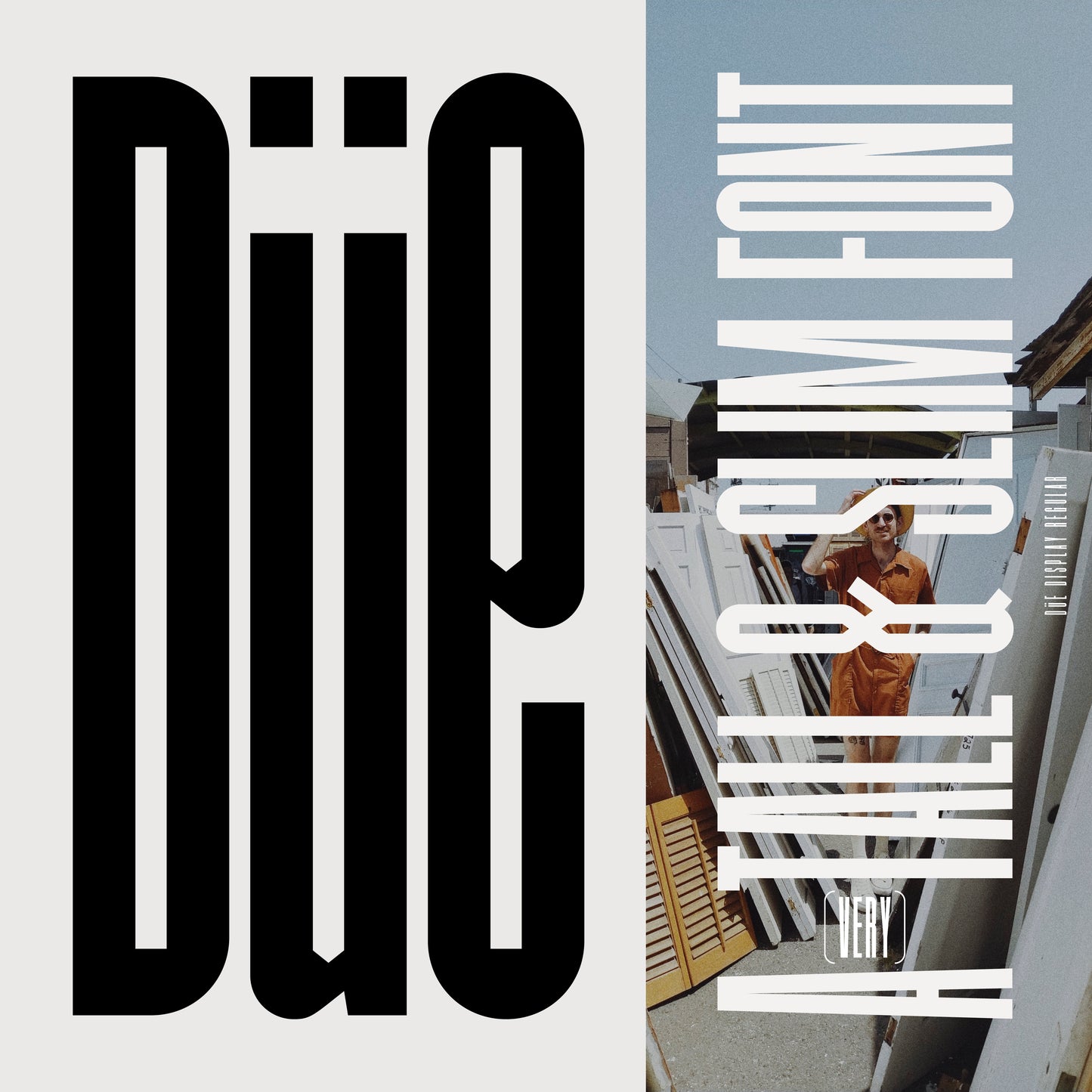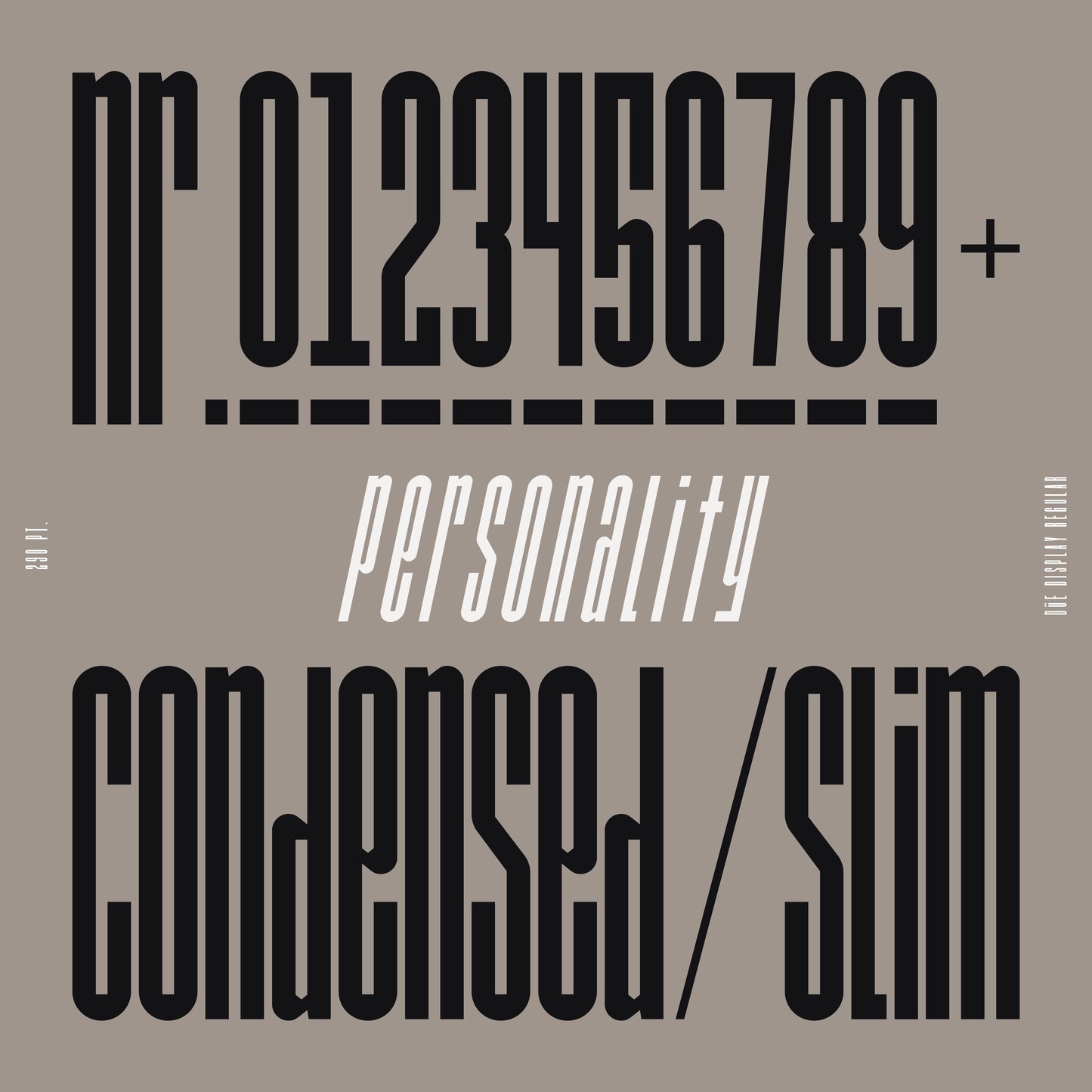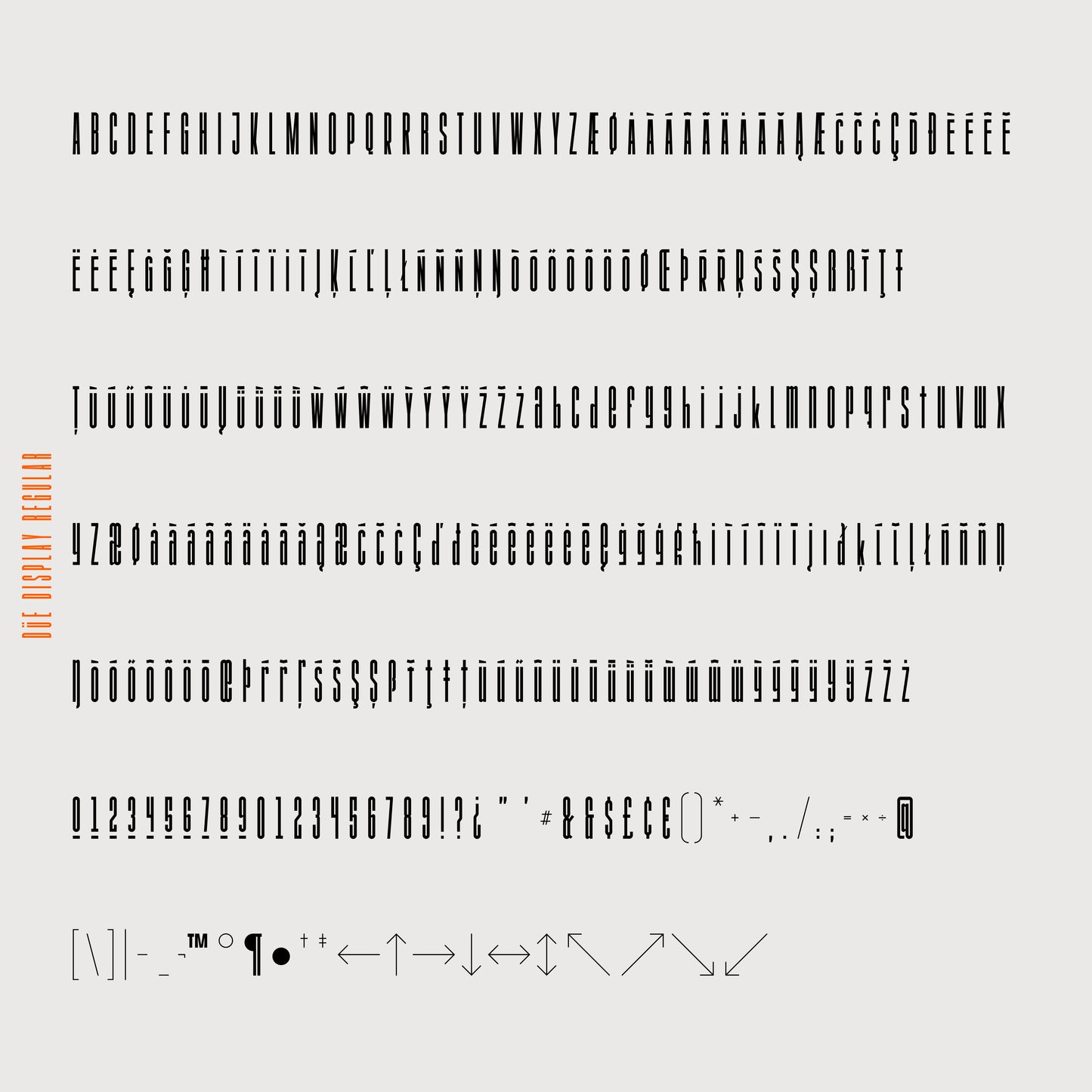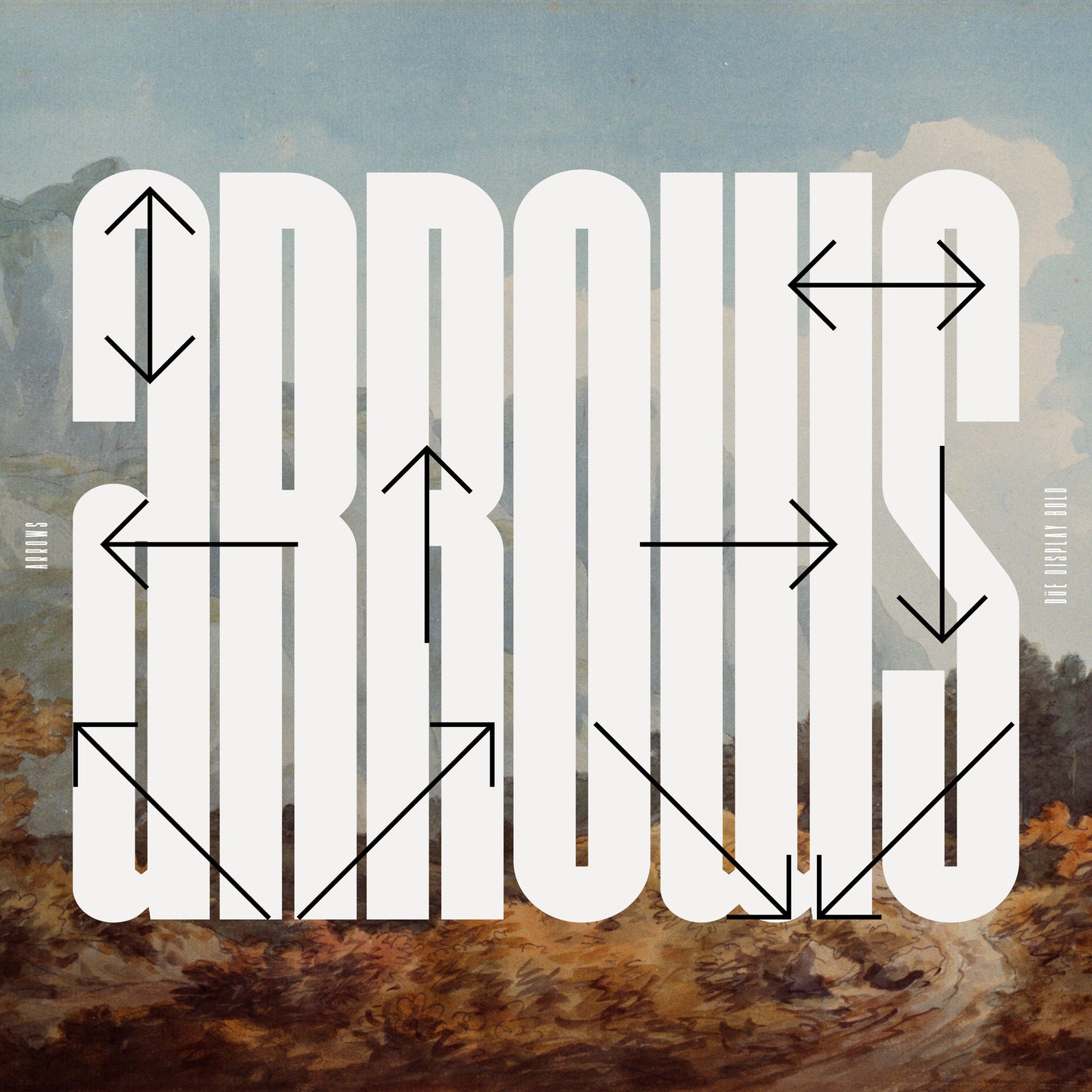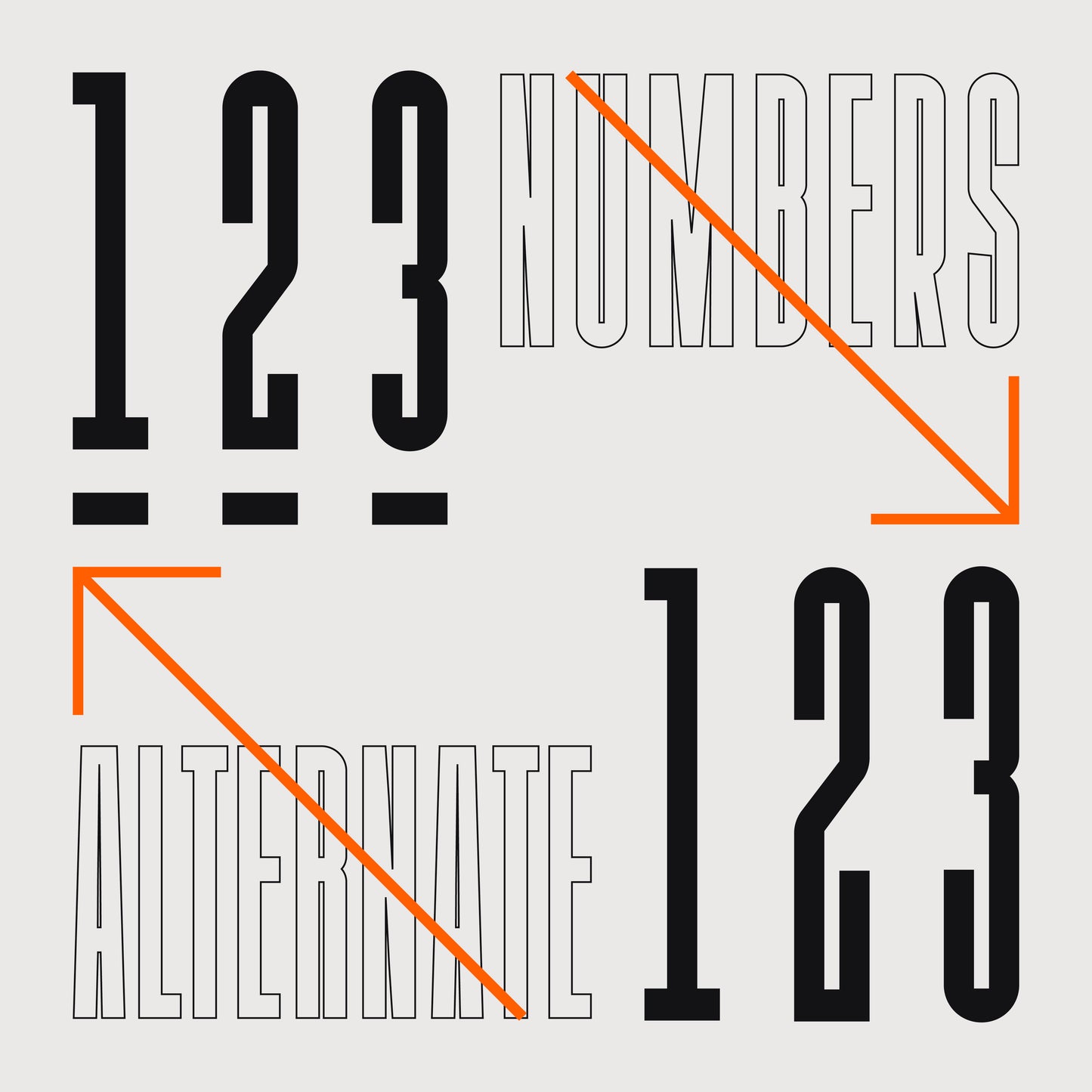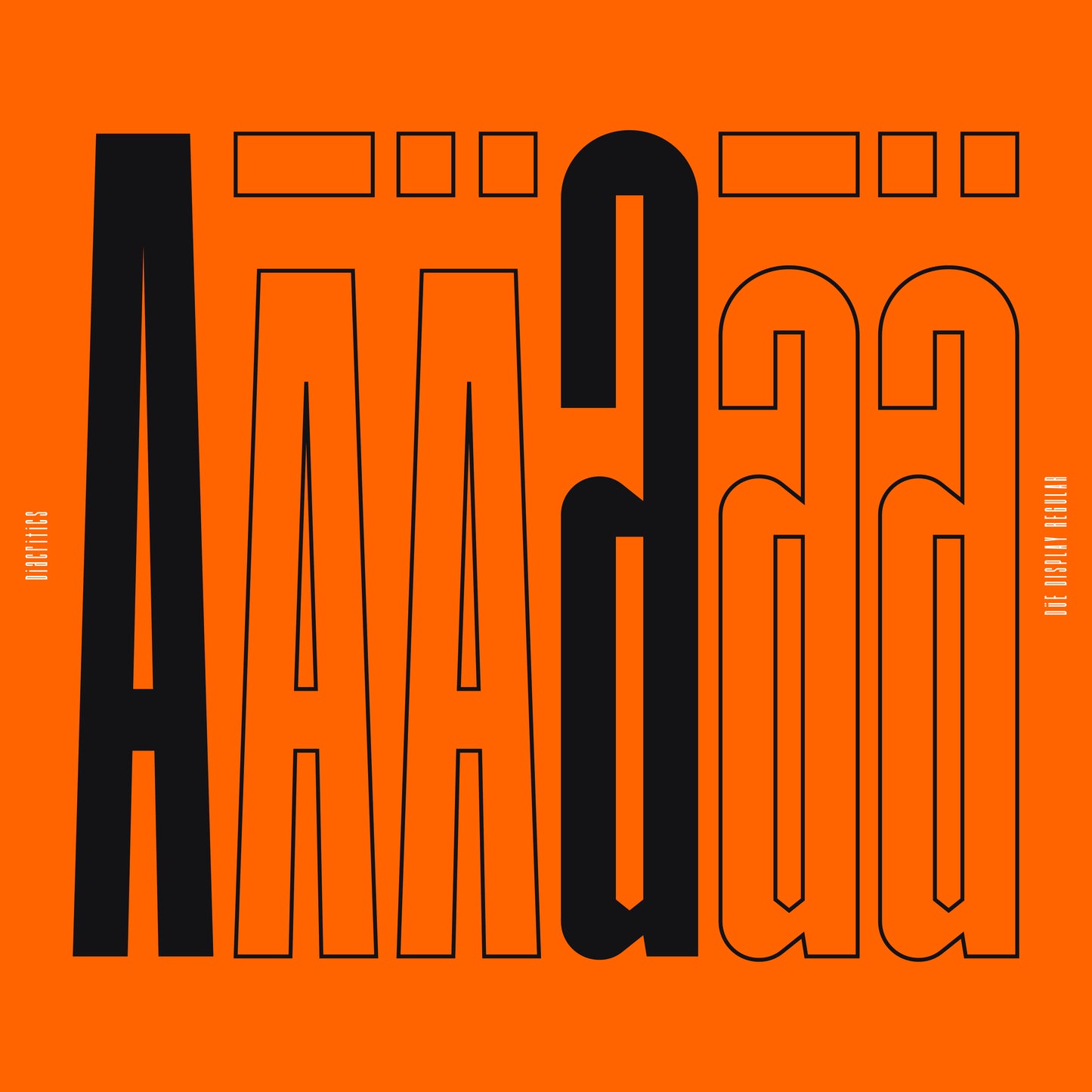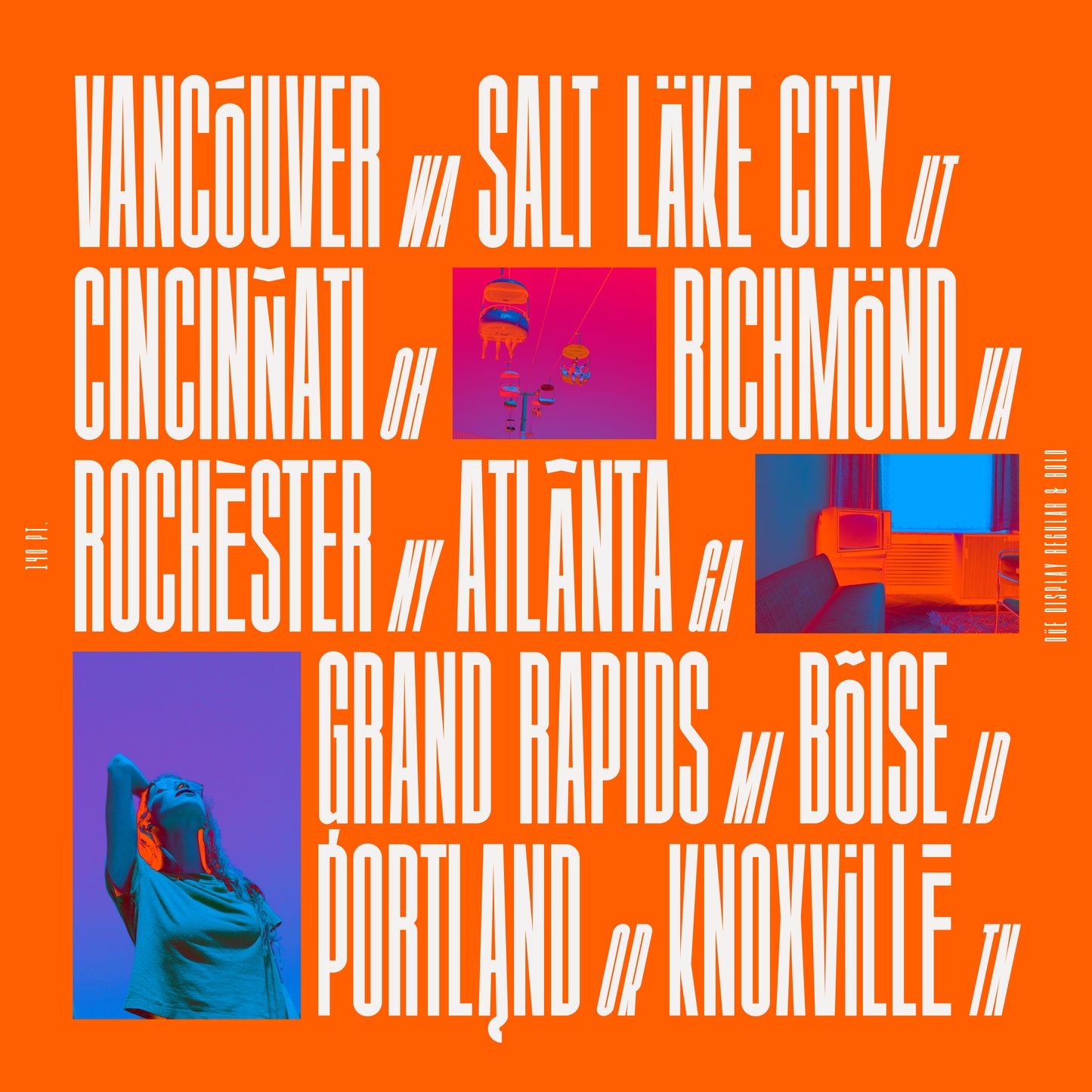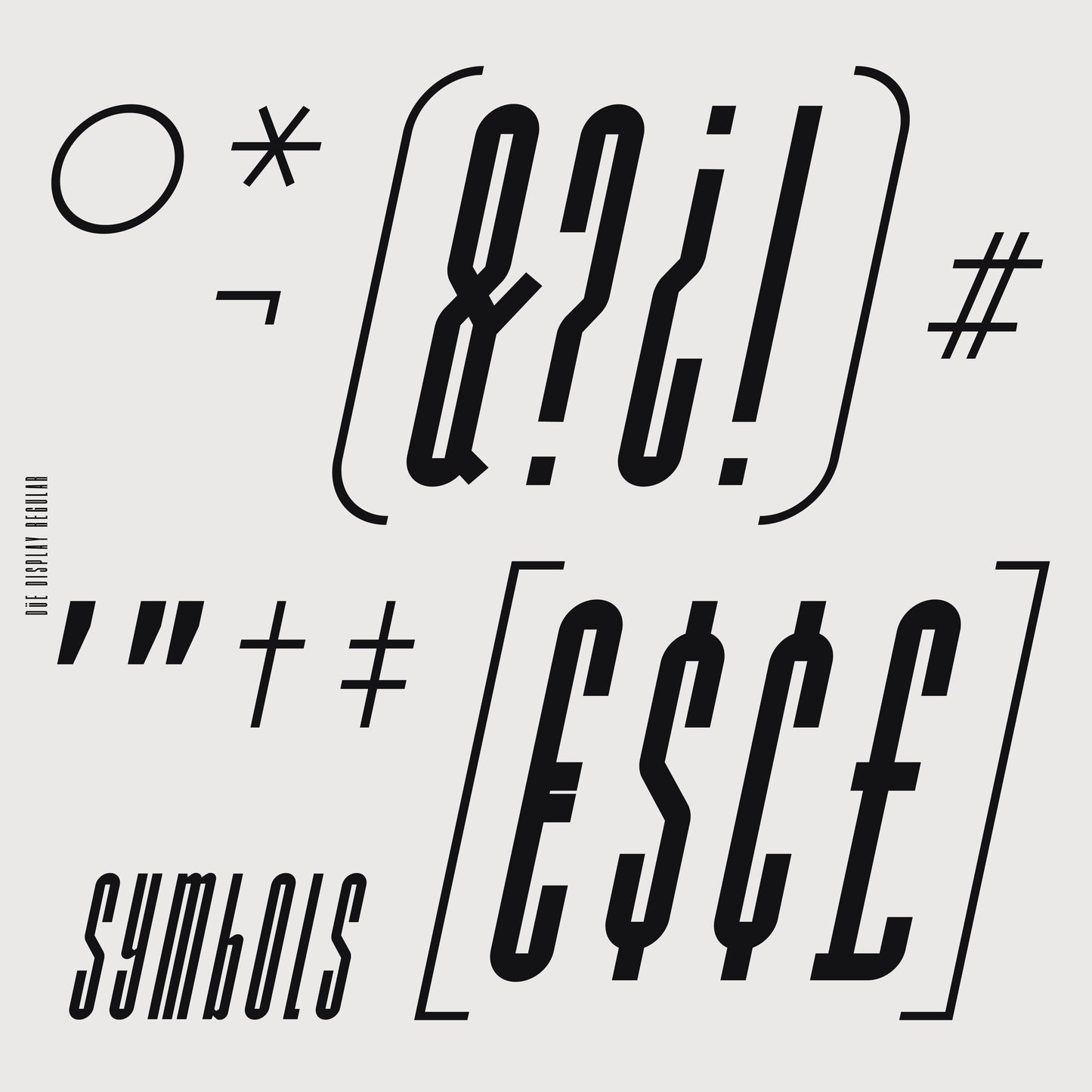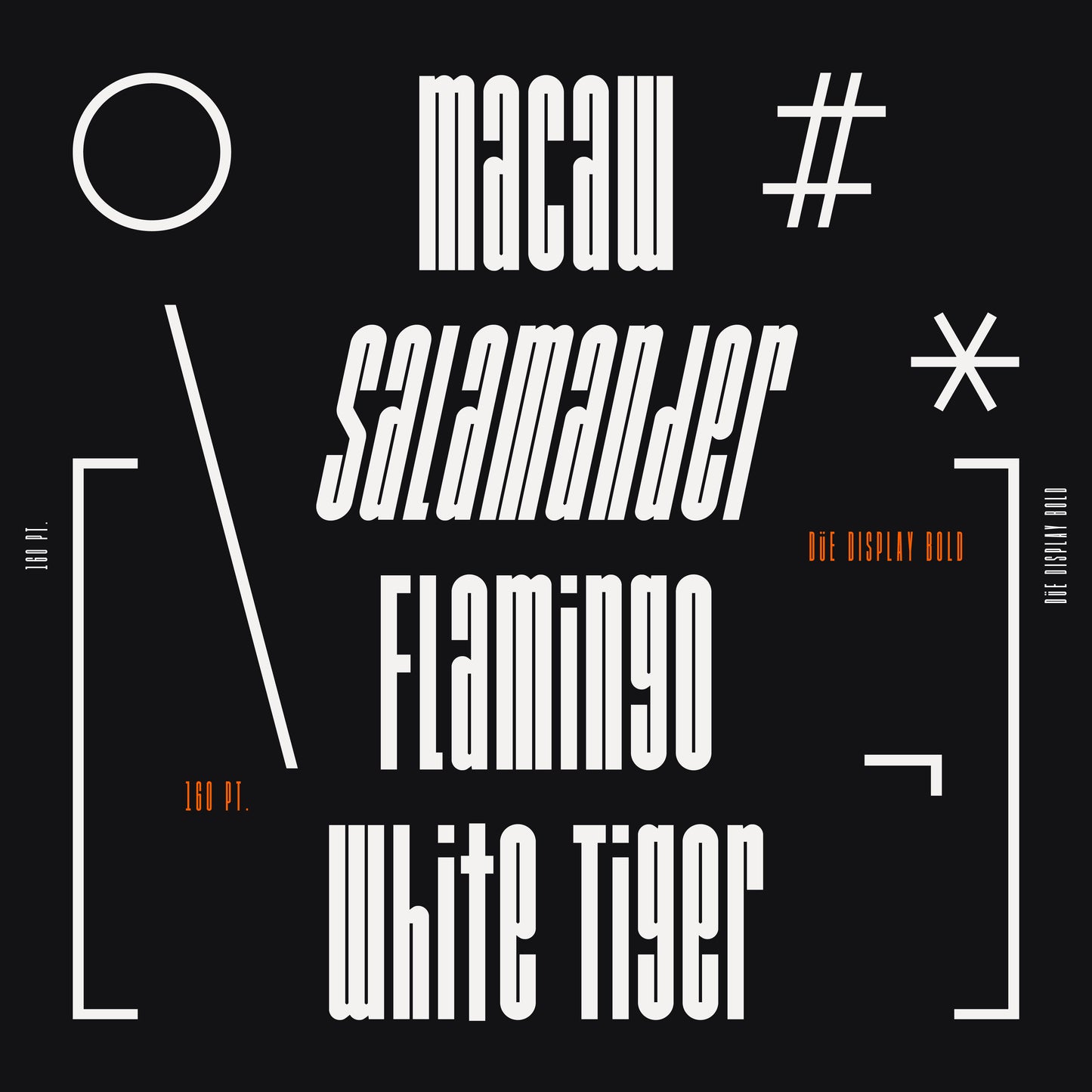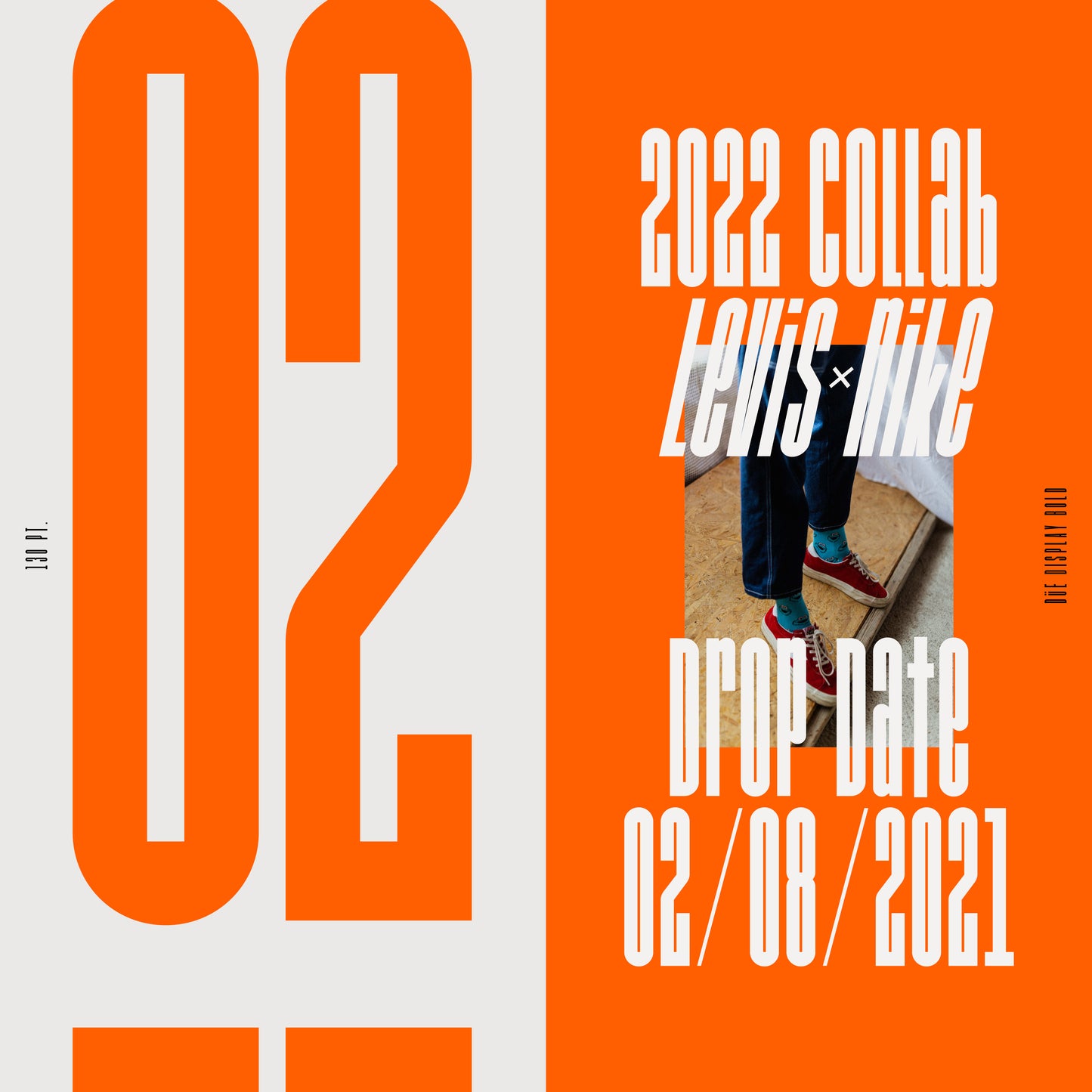
DÜE Display
Johanne Lian Olsen
DÜE Display is a modern, condensed, and bold font featuring soft outer shapes and sharp, angled counterspaces. Originally released in 2017 and expanded with additional characters in 2020, this typeface offers a versatile and expansive range of creative possibilities.
Available in two weights and supporting all Western European languages, DÜE Display is ideal for crafting impactful headlines. Its experimental design lends a contemporary edge to robust sans-serif typography, making it a compelling choice for projects that demand a strong visual presence.
- 2 weights + italics
- Uppercase + lowercase
- Numbers
- Diacritics (Western European)
- Punctuation
- Stylistic Alternates
- Arrows